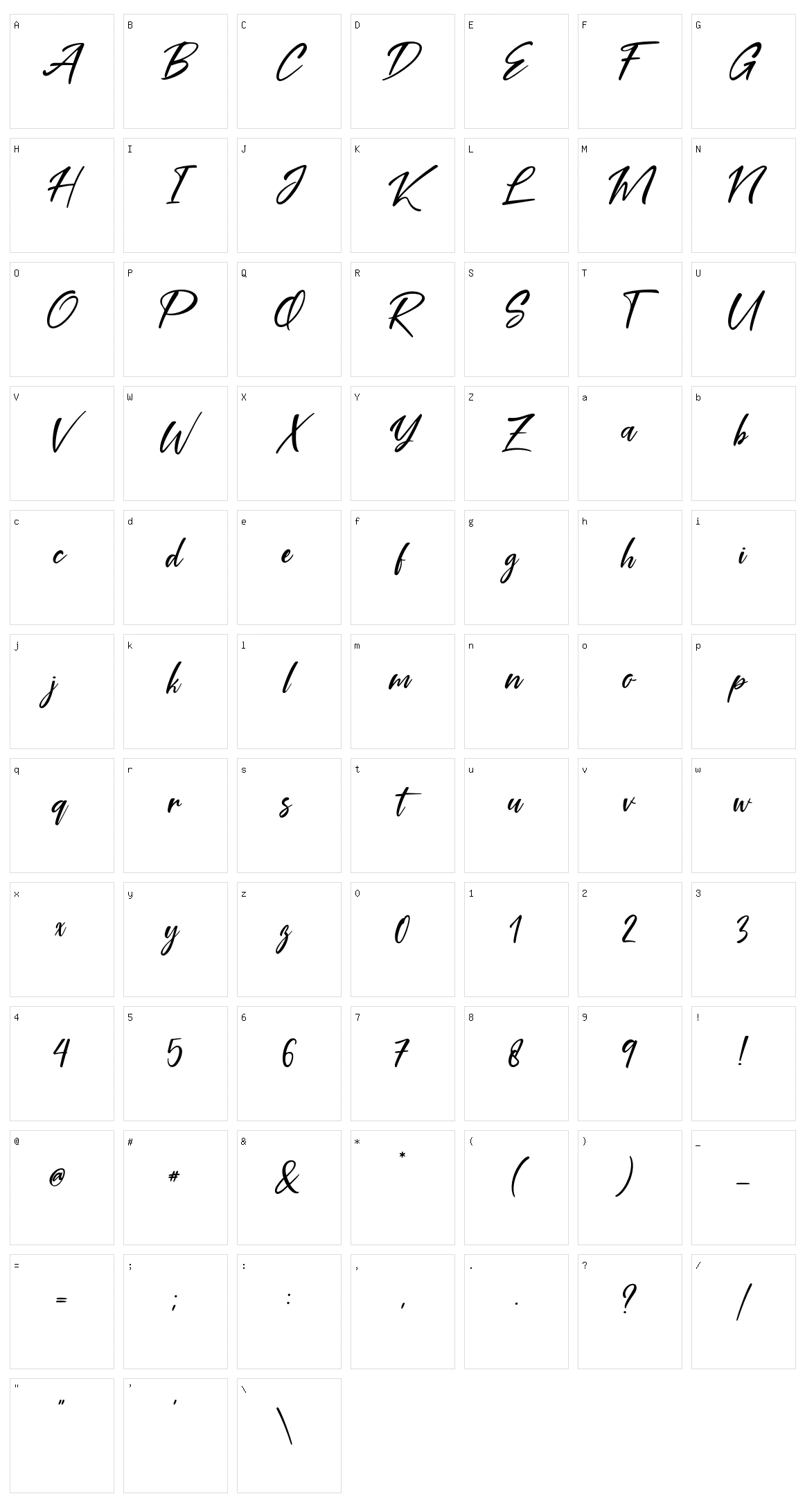
The free font Coral Pen is carefully designed by Suzuran San, showcasing a thoughtful balance of creativity and usability and falls under the Script font style. When you download the ZIP file, it contains only 284.33 KB of font files, making it lightweight and quick to download. Please review the license details below to understand permitted usage and distribution rights. If license information is not available, we recommend using this font for personal projects only or contacting the author directly for commercial usage permissions.